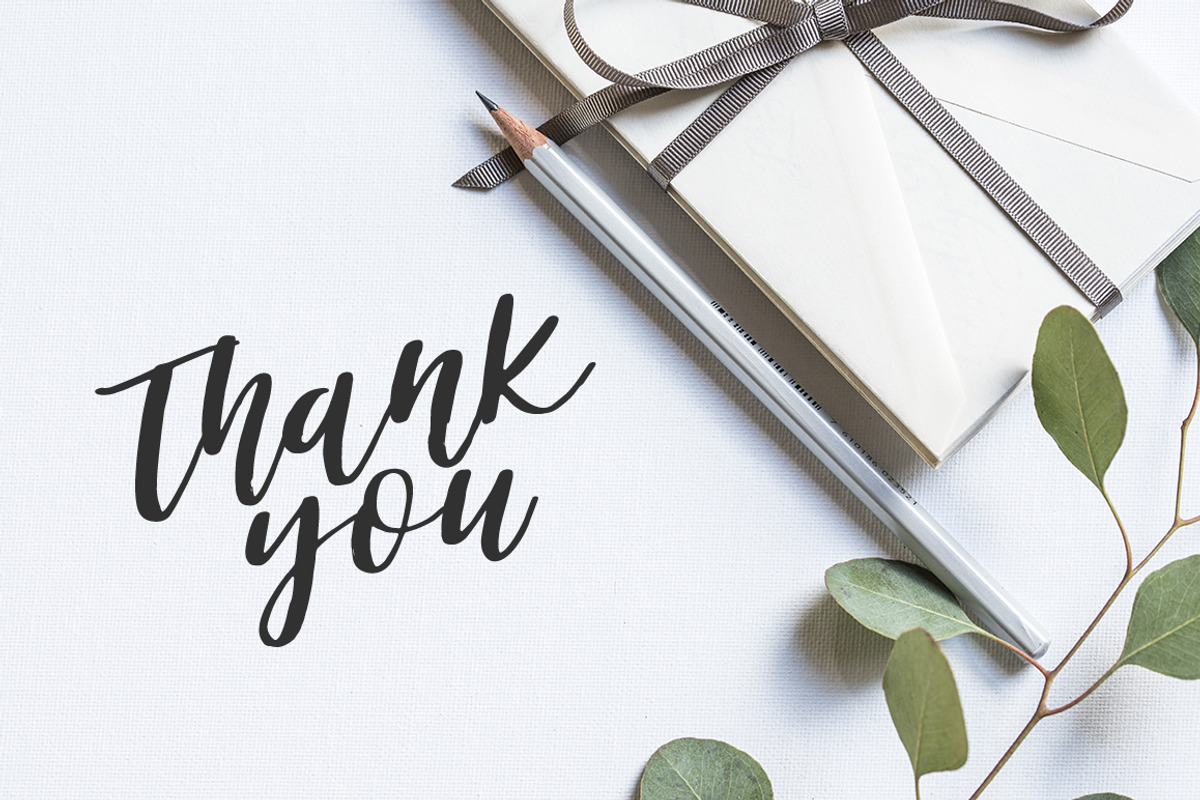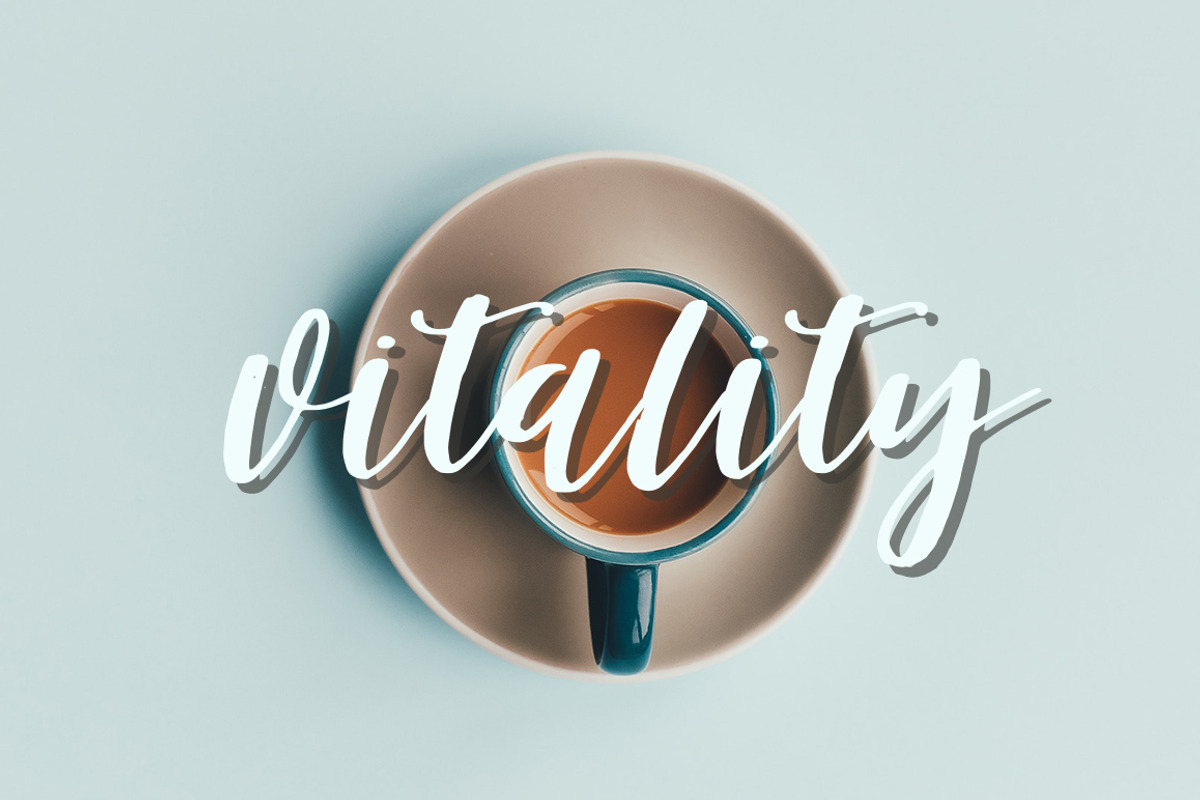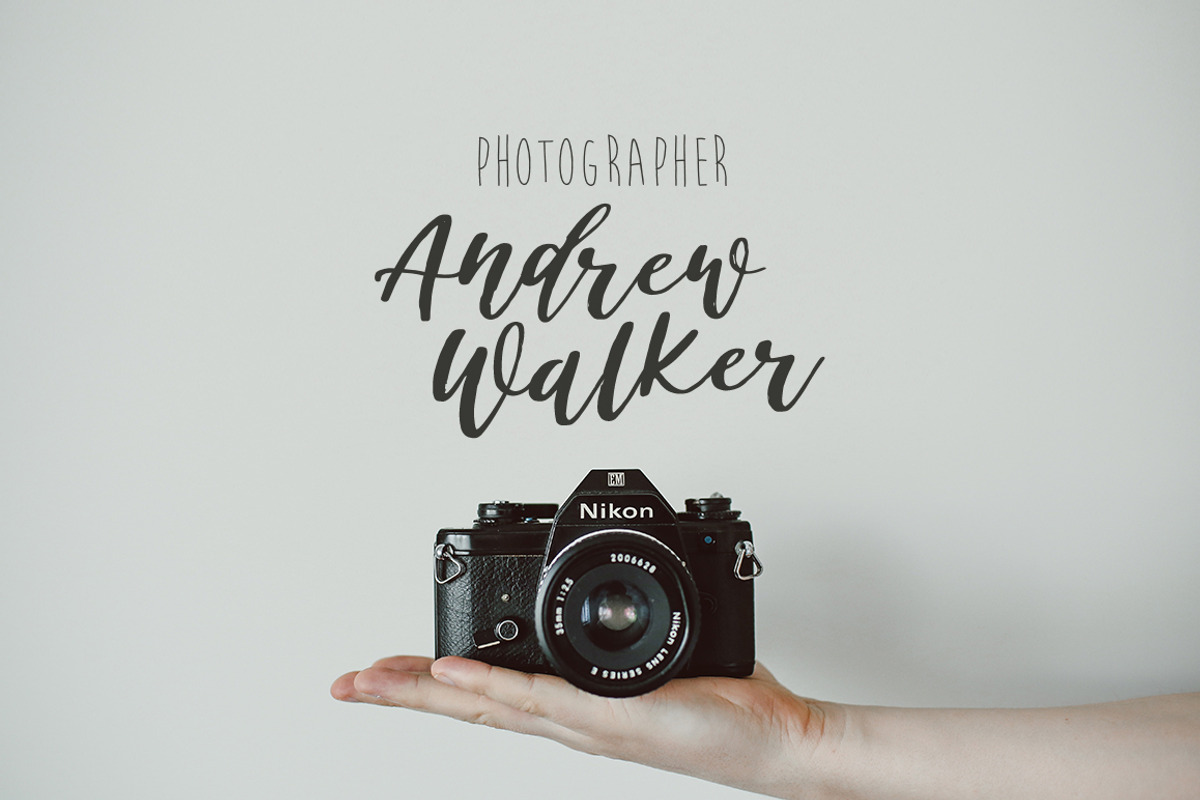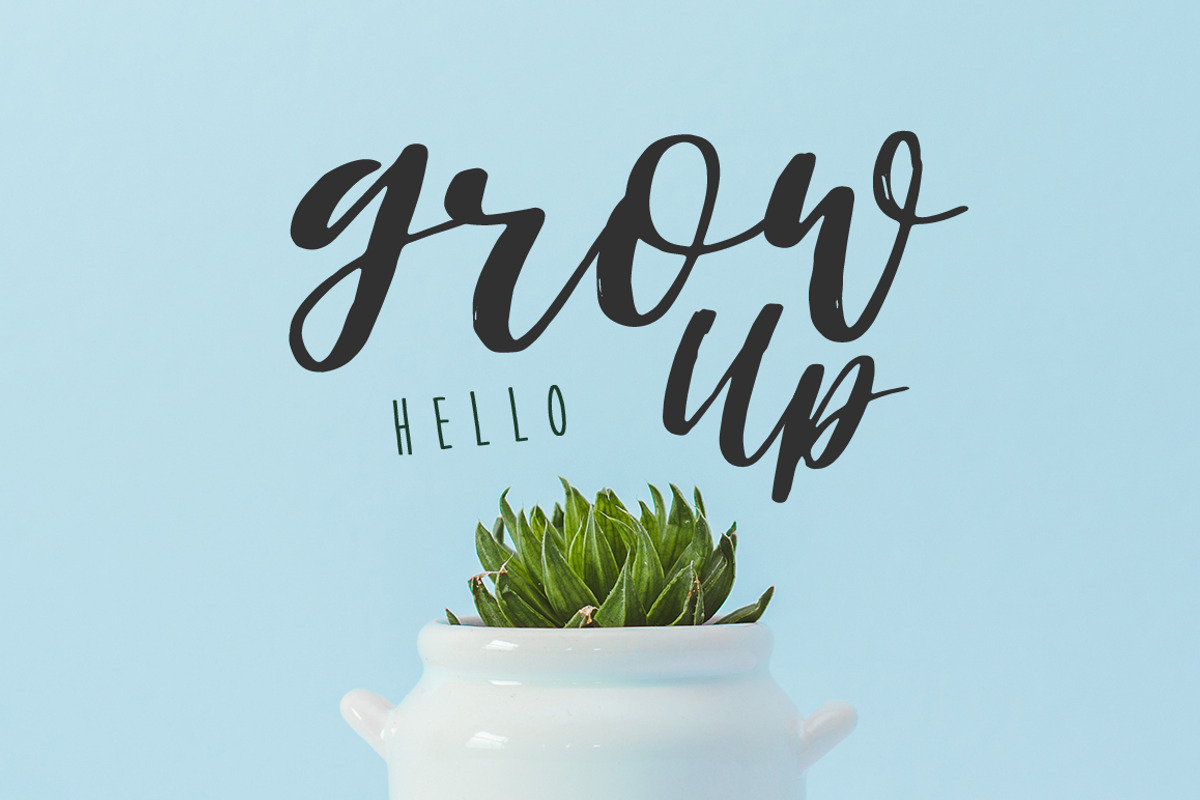
Battery Script
This modern calligraphy script has been attentively written, with gentle curves to produce a font thats completely distinctive and original. It contains a full set of lower & uppercase letters, a large range of punctuation, numerals, and multilingual support. Perfect for adding a elegant and unique touch to your lettering projects and branding
Also with their help, you can create a Wedding lettering or beautiful frame for your home. Or just use for your small business, book covers, stationery, marketing, magazines and more.